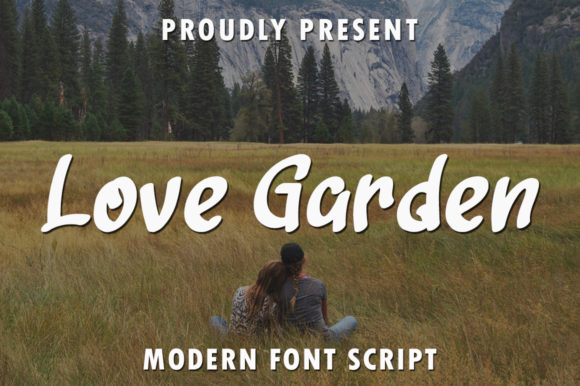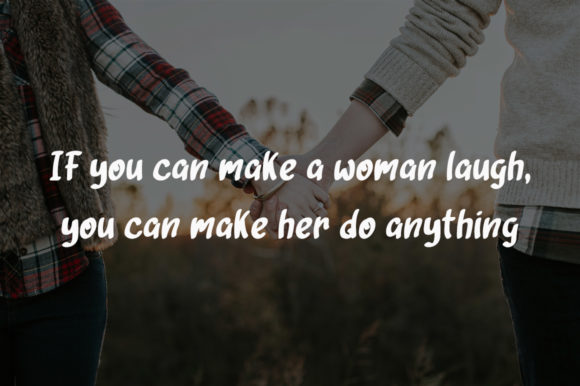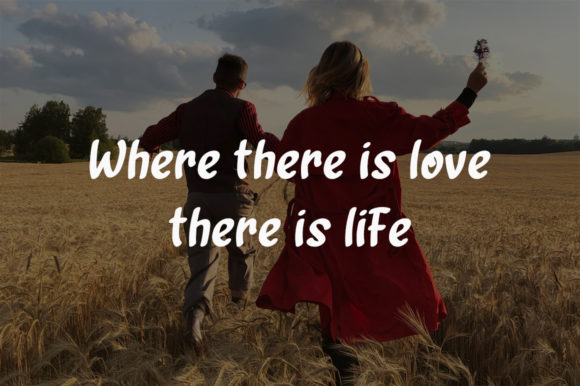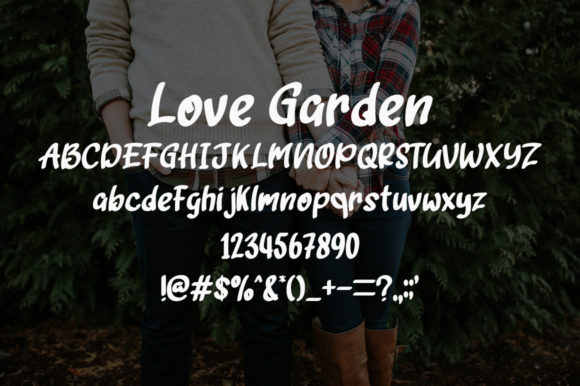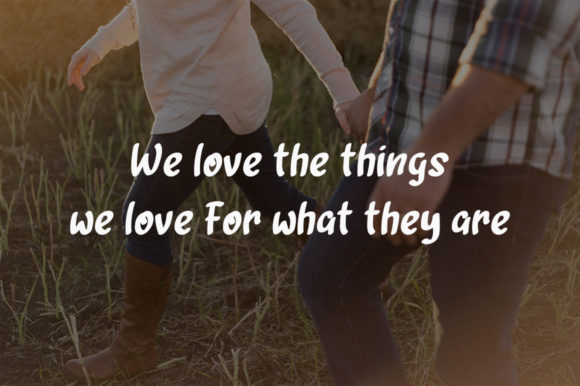
Love Garden Font
About Love Garden Font
Love Garden is a charming and casual handwritten font that allows you to unleash your creativity and create stunning designs. With its natural and organic style, this font adds a touch of warmth and playfulness to any project.
The casual nature of Love Garden makes it a versatile choice for a wide range of design applications. Whether you’re working on social media graphics, branding materials, greeting cards, or any other creative project, Love Garden brings a fresh and inviting feel to your designs.
The hand-drawn appearance of Love Garden adds a personal and authentic touch to your typography. It mimics the imperfect strokes of a pen or brush, giving your text a unique and handmade look. This makes it perfect for conveying a sense of creativity, individuality, and approachability in your designs.
One of the great features of Love Garden is its adaptability to various design styles. It can be used for both bold and eye-catching headlines as well as for more subtle and delicate typography. The versatility of this font allows you to experiment with different sizes, weights, and color combinations to create visually appealing compositions.
Love Garden is also a great choice for adding decorative elements or flourishes to your designs. It includes various swashes and glyphs that can be accessed easily, allowing you to embellish your text and create a more customized and artistic look. These additional elements can be used to emphasize certain words or phrases, add a touch of elegance, or simply enhance the overall aesthetic of your design.
When working with Love Garden, you can explore different color schemes and textures to complement the handwritten style. From vibrant and playful colors to soft and muted tones, the font adapts well to various color palettes, allowing you to create designs that align with your desired mood or theme.
In summary, Love Garden is a casual handwritten font that offers endless creative possibilities. With its natural and organic style, it brings a touch of warmth and playfulness to your designs. Use Love Garden to create stunning graphics, branding materials, and more, and let your imagination run wild!